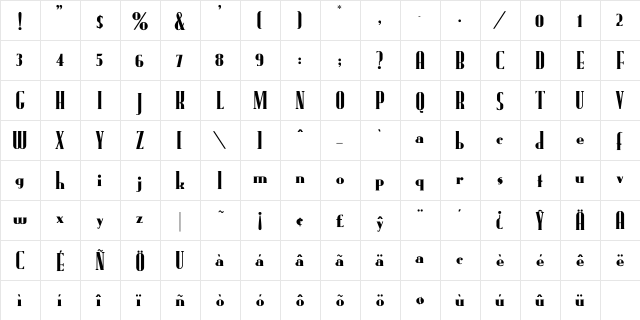
FundRunk-Normal Regular
Design Context for FundRunk-Normal Typeface
FundRunk-Normal has an approachable, lighthearted character — its loose, expressive forms are well-suited to children's content, casual branding, and fun-first design.
Font Pairing: Pairs well with a rounded or humanist sans for body copy, maintaining the friendly tone without relying on FundRunk-Normal to carry extended reading.
Pro Tip: Use FundRunk-Normal at larger display sizes where its expressive character can land. Pair with a clean, simple sans for body copy to maintain readability.